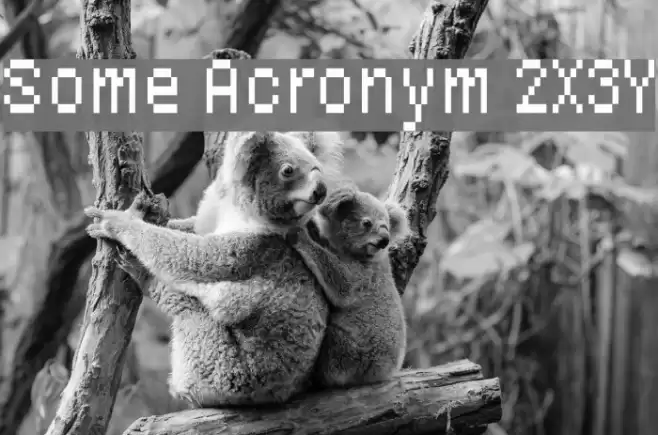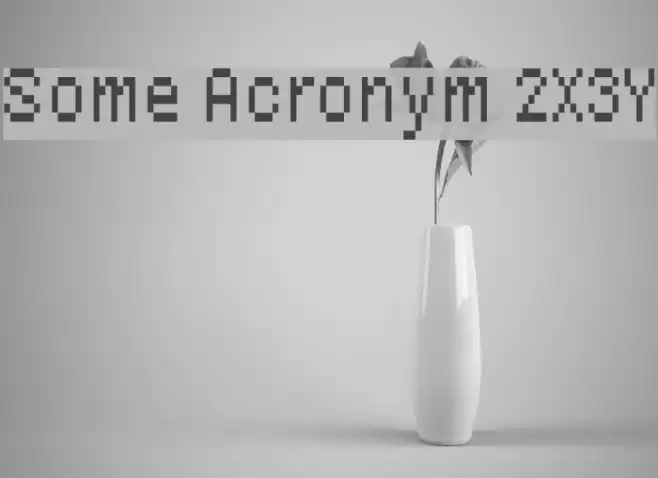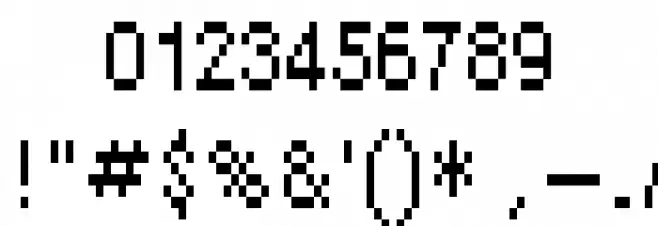
Some Acronym 2X3Y Font
Some Acronym 2X3Y Description
This font features a pixelated, blocky design reminiscent of early digital displays and retro video games. Each character is constructed with a uniform grid-like pattern, giving it a distinctly digital and geometric appearance. The uppercase and lowercase letters maintain a consistent height and width, contributing to a monospaced feel. The numerals and special characters follow the same design principles, ensuring a cohesive look across all glyphs. This font's simplicity and clarity make it ideal for digital-themed projects or any design that seeks to evoke nostalgia for early computing aesthetics.
A pixelated, blocky font with a retro digital aesthetic from Uncategorized fonts.
- Proposed Projects: Ideal for retro video game graphics, digital-themed posters, and tech-inspired branding.
- Overall Style: Retro, Digital
- Use Case: Logos, Headlines, Digital displays